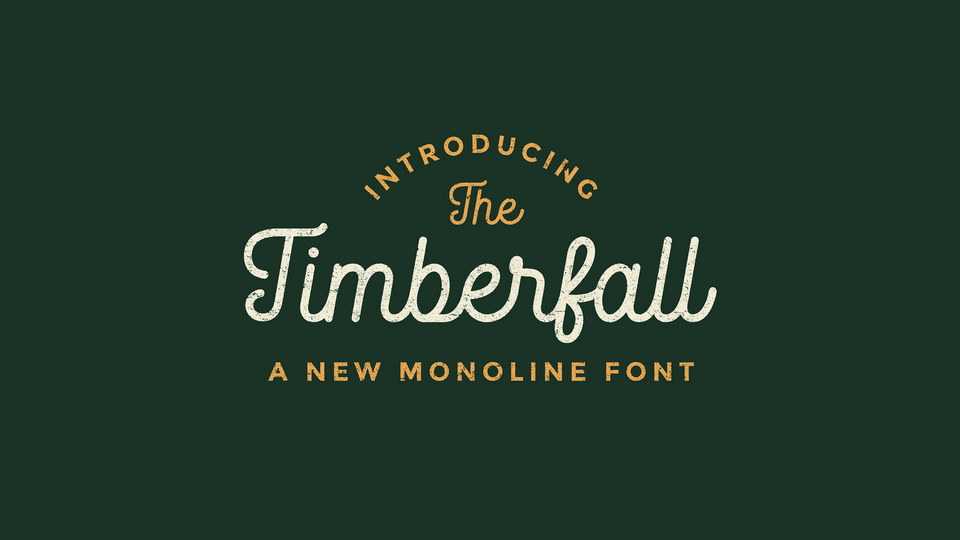
Download Timberfall font, a a beautiful flowing monoline script font. Timberfall is perfectly suited for vintage logos, branding, posters, greeting cards and much more!
Designer: Áron Farsang